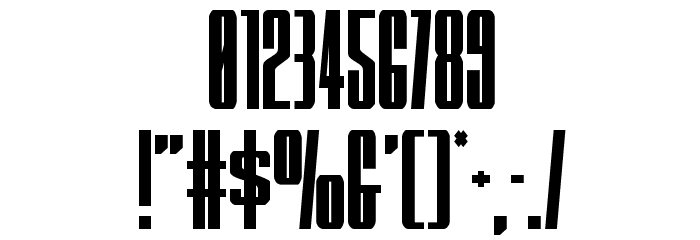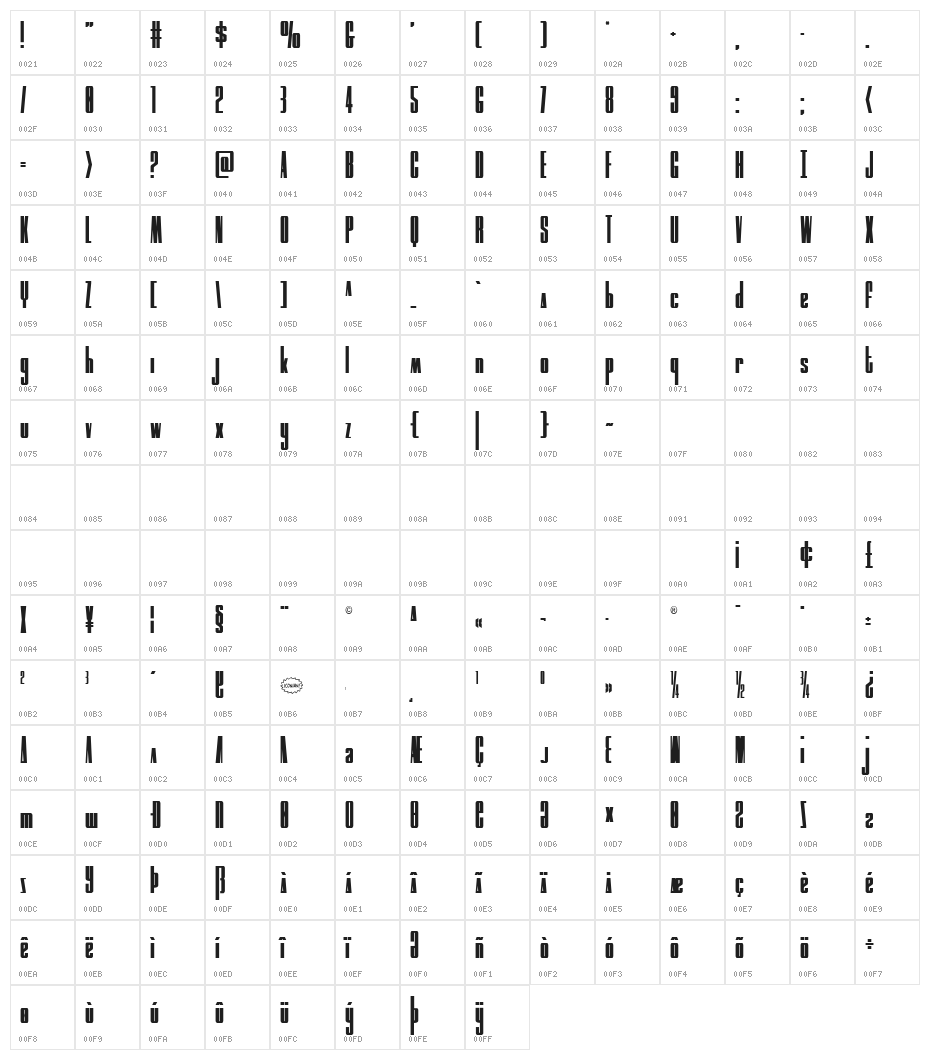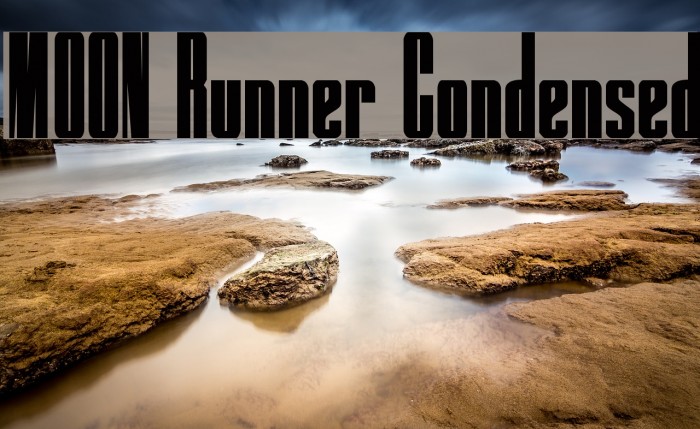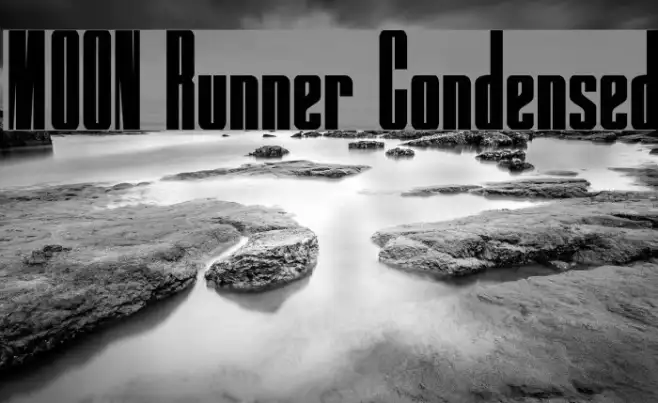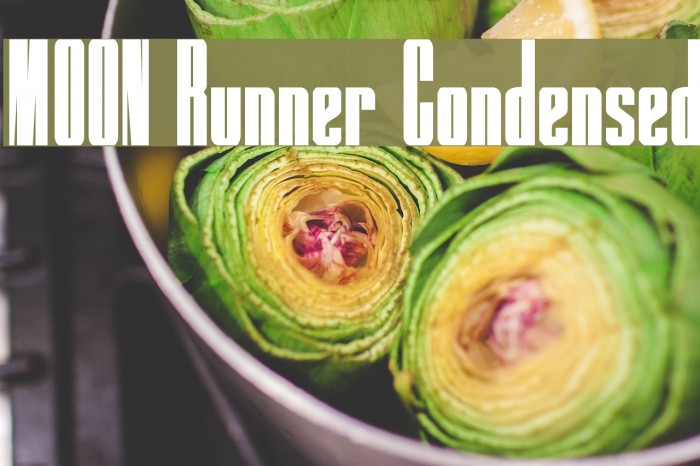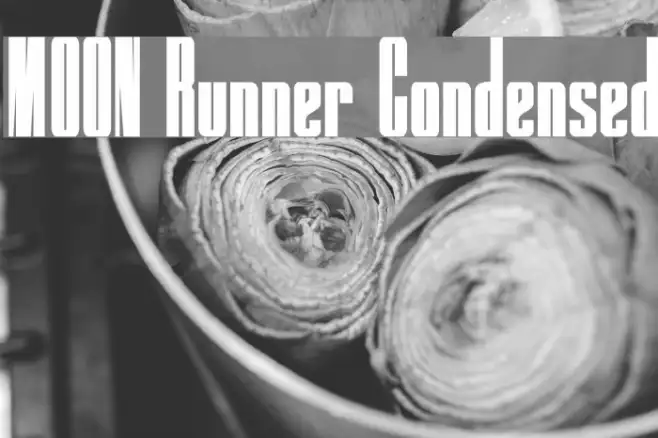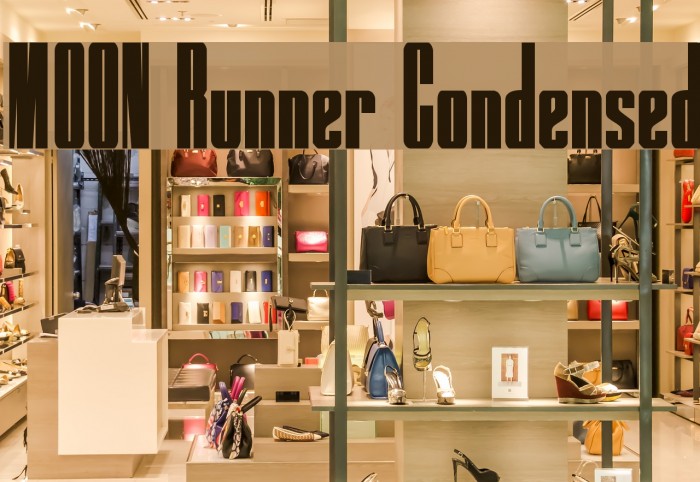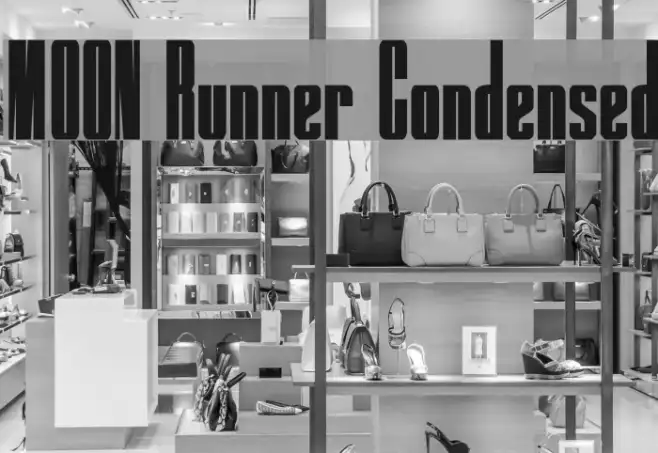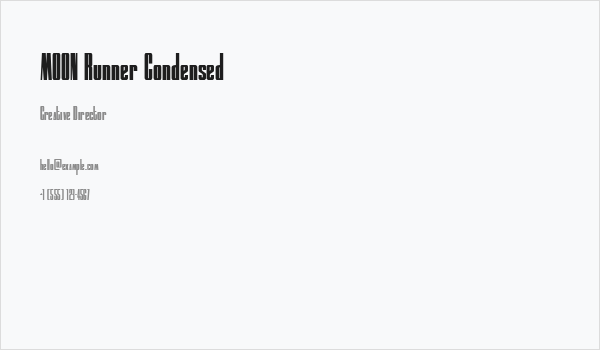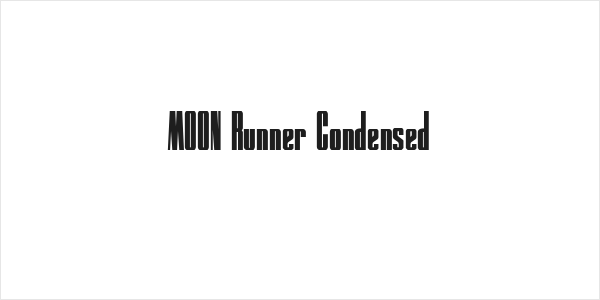
MOON Runner Condensed Font
MOON Runner Condensed Description
This font features a bold and condensed style, characterized by its tall and narrow letterforms. The uppercase letters are particularly striking, with a strong vertical emphasis and minimal spacing between characters, creating a compact and impactful appearance. The lowercase letters maintain the condensed style, offering a cohesive look across different text sizes. Numbers and special characters are designed to match the boldness and condensed nature of the alphabet, ensuring consistency throughout. The overall design is modern and assertive, making it suitable for projects that require a strong visual presence.
| Proposed Projects | Ideal for headlines, posters, branding, and any design requiring a strong visual impact. |